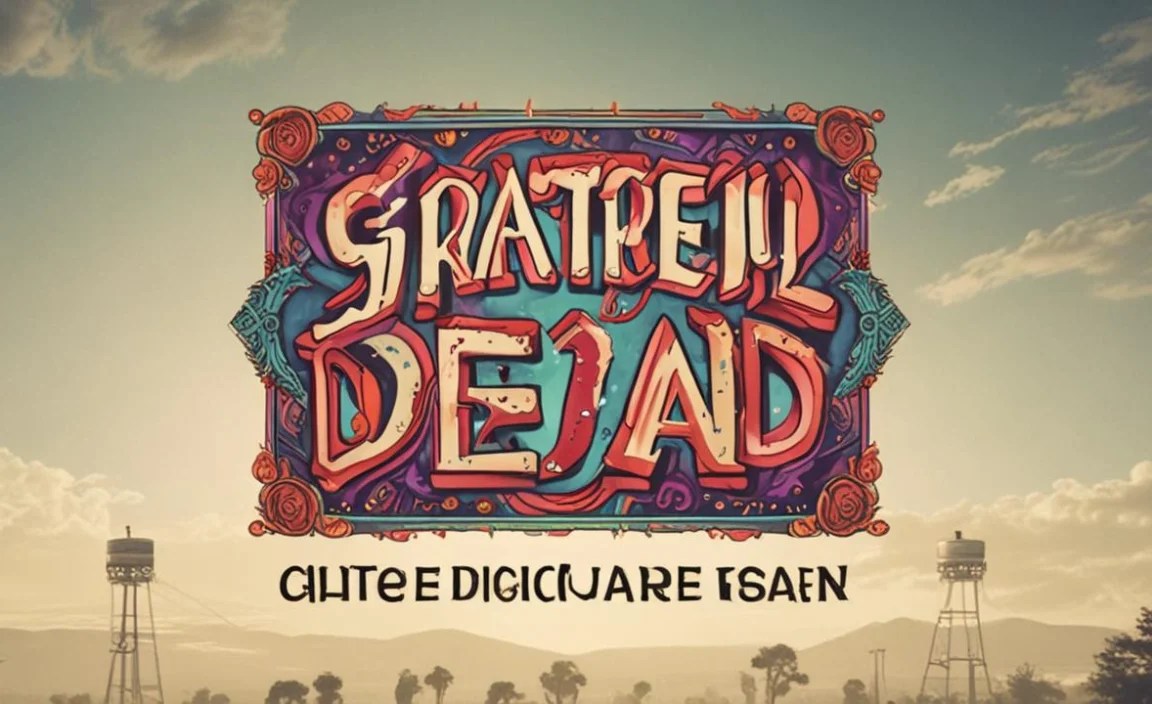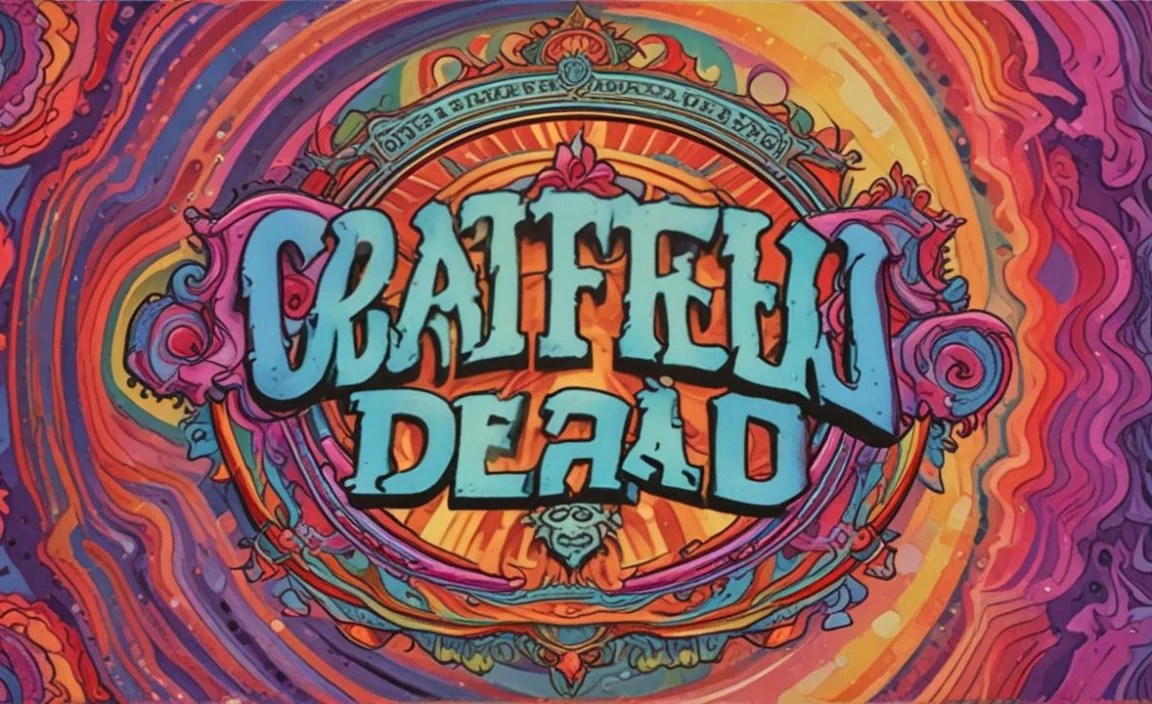
The Grateful Dead Font, inspired by the legendary American rock band Grateful Dead, is a distinctive and artistic typeface loved by fans and designers alike.
The font captures the psychedelic, eclectic style associated with the band’s music and imagery. Created by Glyphobet Font Foundry, Iconian Fonts, and others, this font is perfect for posters, album covers, merchandise, and more.
Grateful Dead Font Information
| Name | Grateful Dead Font |
| Style | Fancy, Psychedelic |
| Designer | Honey & Death, Iconian Fonts |
| Type | Fancy |
Grateful Dead Font Family Includes
The Grateful Dead Font family includes variations and styles such as:
- Grateful Dead Regular
Popular Uses For Grateful Dead Font
This typeface is a favorite for projects that demand a retro, artistic edge:
- Posters: Perfect for concert promotions or event announcements, capturing the psychedelic vibe of the band.
- Album Covers: An iconic choice for music projects that require a vintage and eclectic aesthetic.
- Merchandise: Ideal for fan memorabilia such as T-shirts, mugs, stickers, and tote bags.
- Graphics: Great for social media content, retro-themed designs, or website visuals.
- Signage: Makes a bold statement in displays or advertisements with a nostalgic flair.
Why Choose Grateful Dead Font?
The Grateful Dead Font is more than just a typeface—it’s a tribute to the band’s iconic aesthetic and the cultural movement it represents. With its bold, psychedelic design, this font is perfect for channeling the spirit of the Grateful Dead into your creative projects. Whether you’re designing posters, album art, or fan merchandise, the Grateful Dead Font adds an unmistakable artistic edge.
2.Where Can I Use This Font?
The Grateful Dead Font is ideal for posters, album covers, merchandise, graphic designs, and signage. It works especially well for projects with a retro or psychedelic theme.
5.Does This Font Support Unicode?
The Grateful Dead Font may not fully support Unicode but is compatible with general use for most Western characters and symbols.